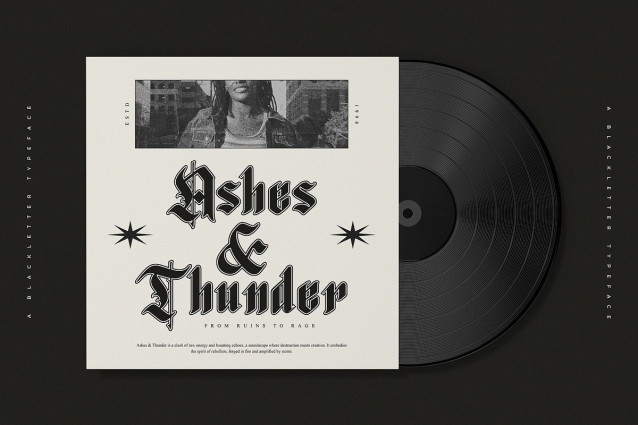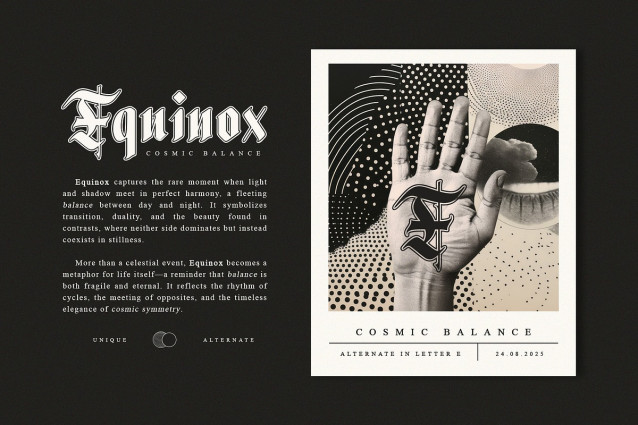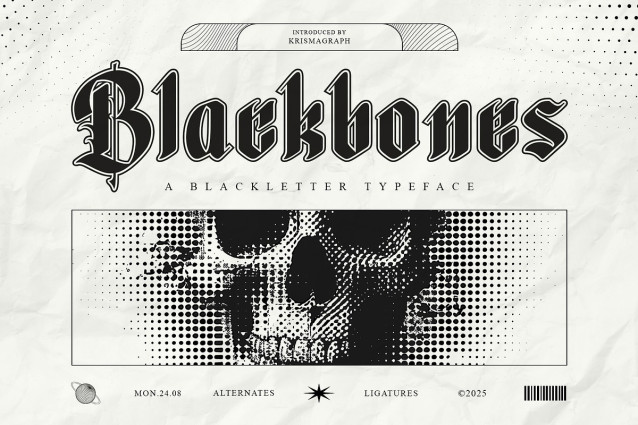
Blackbones Font
Blackbones Font a striking Blackletter typeface that fuses gothic tradition with modern edge. Its strong, sharp letterforms make it the perfect choice for band logos, apparel, tattoo-inspired graphics, posters, and editorial layouts. Designed with alternates and ligatures, Blackbones gives you full control to create dynamic and handcrafted typography. This is more than just a font—it’s a powerful statement for any bold creative project.